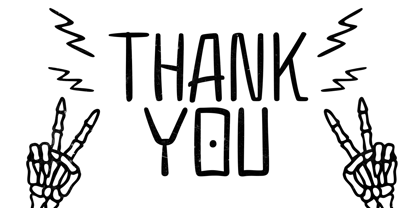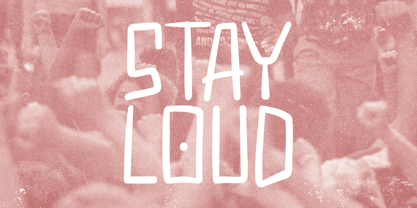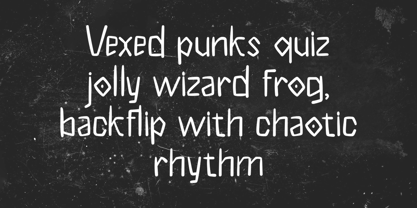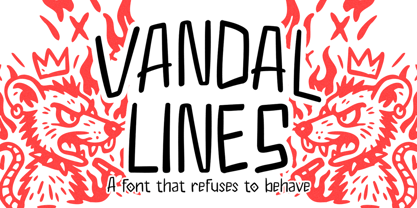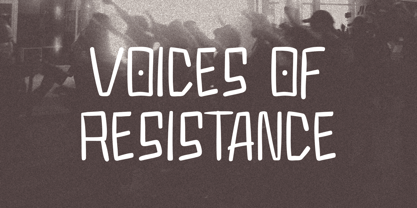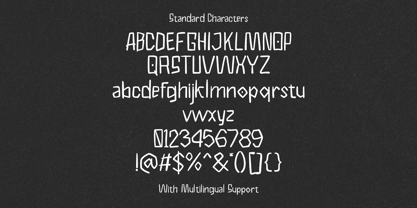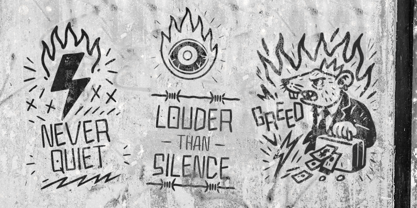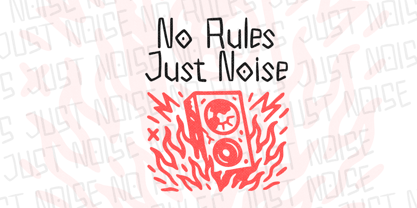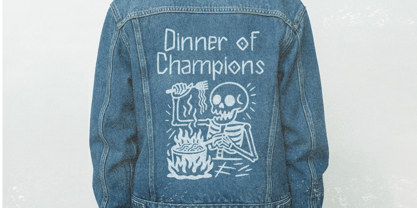
Vandal lines
by Letterhend
The Vandal lines Font Family was designed by Hendry Juanda and published by Letterhend. Vandal lines contains 1 styles. More about this family
Vandal Lines is a rebellious display font that feels raw, bold, and full of attitude—just like its tagline, it refuses to behave. With its irregular strokes and graffiti-inspired style, this font carries a street-art vibe that’s perfect for posters, merch, album covers, skate brands, or anything that needs an edgy, urban punch. It combines playful chaos with strong personality, making your design feel alive, loud, and unapologetically different.